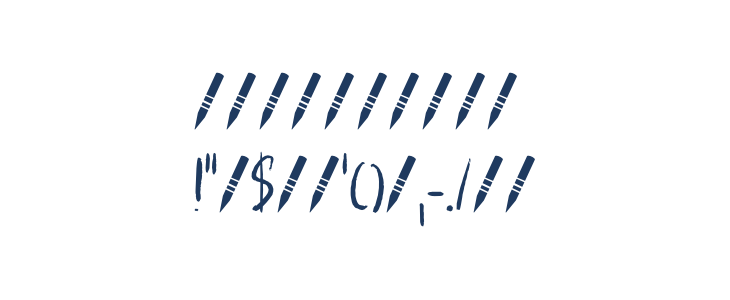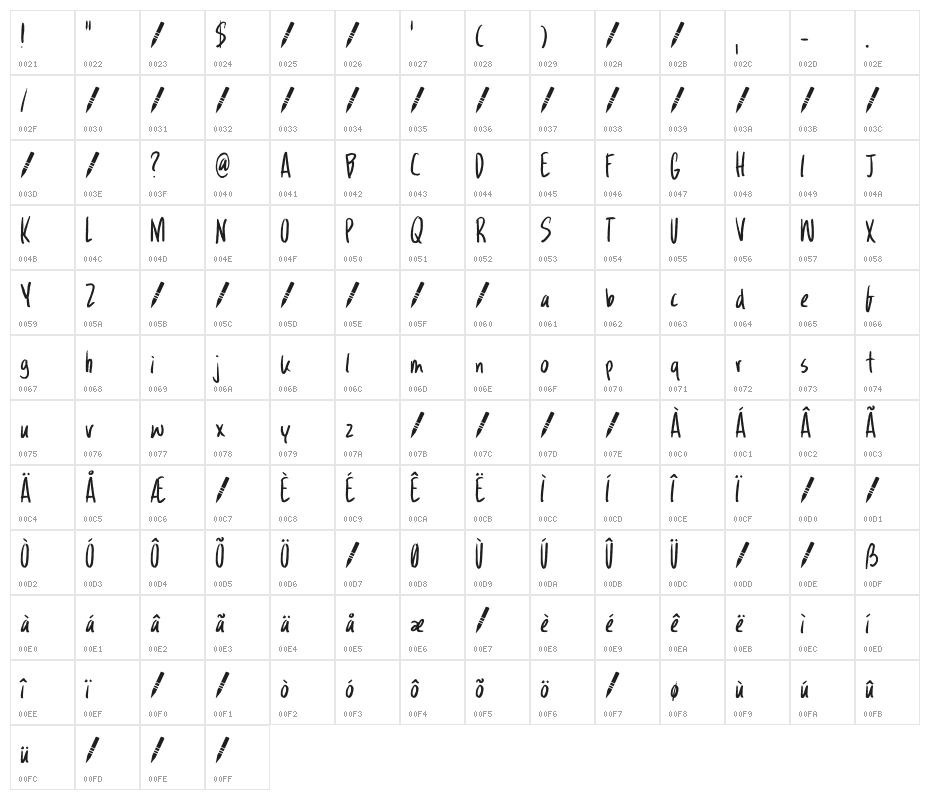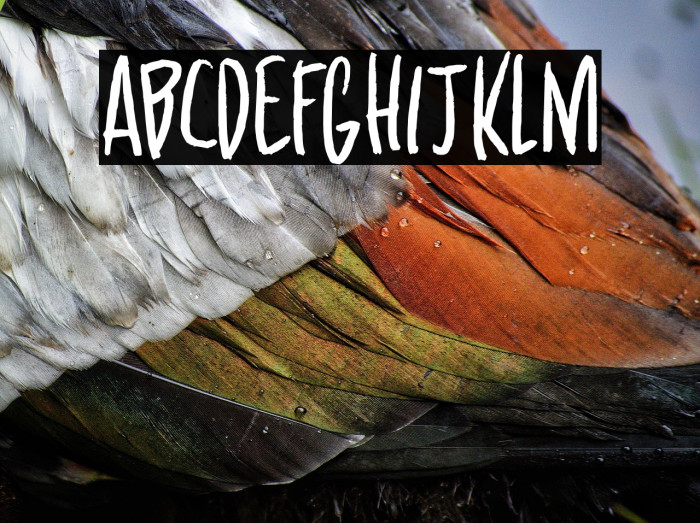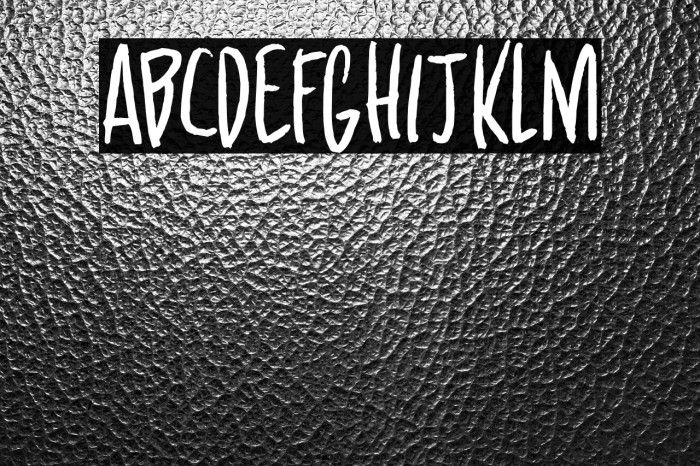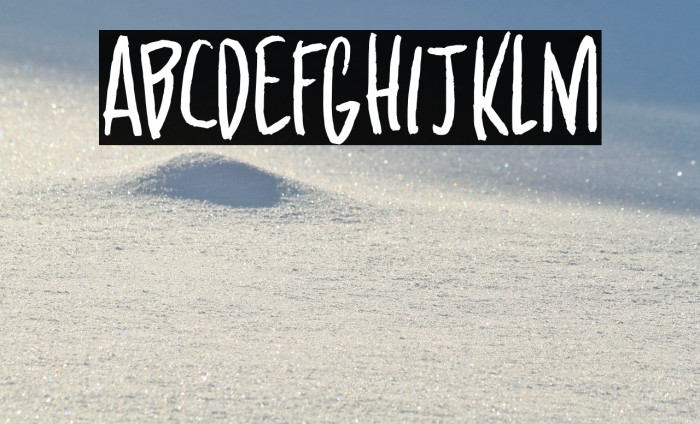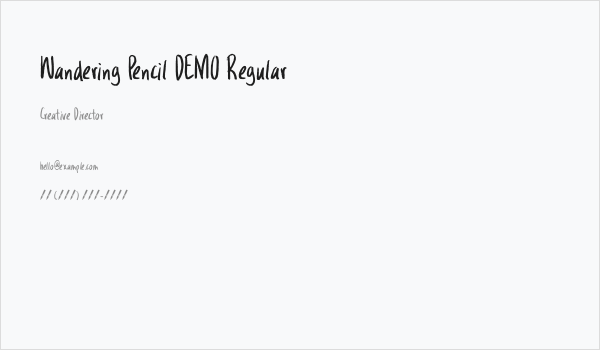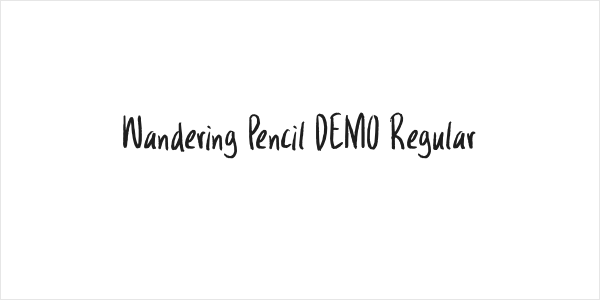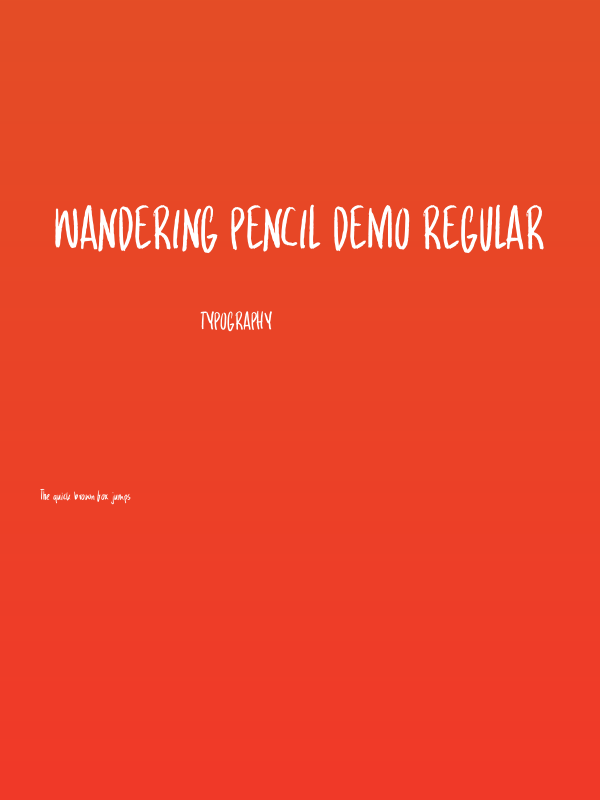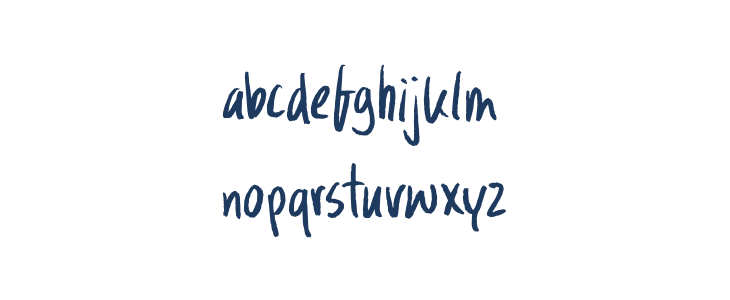
Wandering Pencil DEMO Regular Font
Wandering Pencil DEMO Regular Description
This font features a playful and artistic style, reminiscent of hand-drawn lettering with a brush or marker. The characters are slightly irregular, adding a whimsical and informal touch. The uppercase and lowercase letters maintain a consistent height, while the strokes vary in thickness, creating a dynamic and lively appearance. The numerals and special characters follow the same artistic theme, ensuring a cohesive look across all elements. This font is ideal for projects that require a personal and creative flair.
| Proposed Projects | Ideal for greeting cards, children's book covers, creative posters, and DIY crafts. |